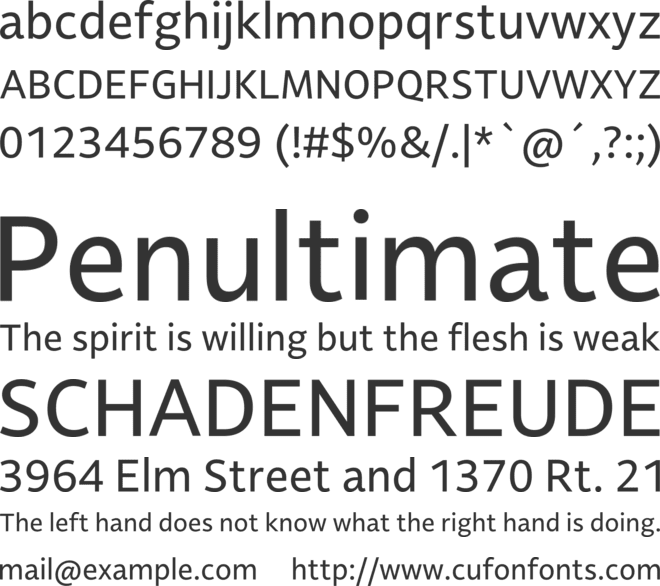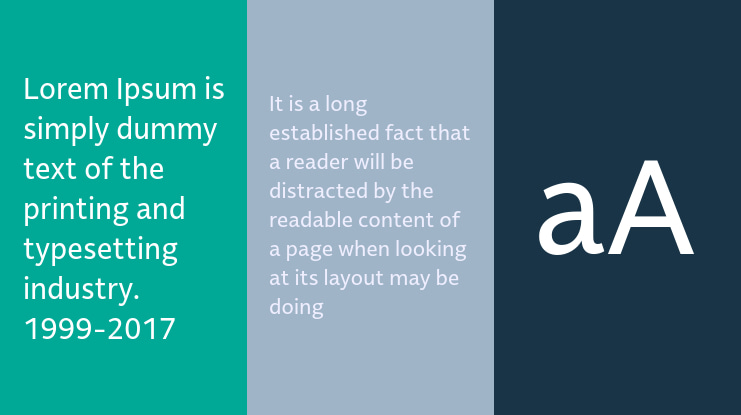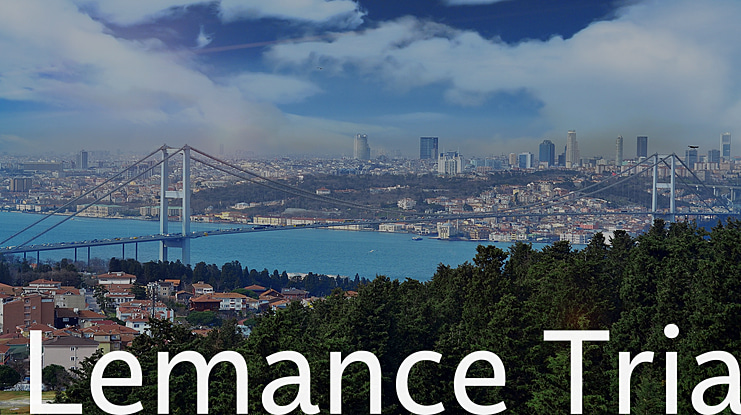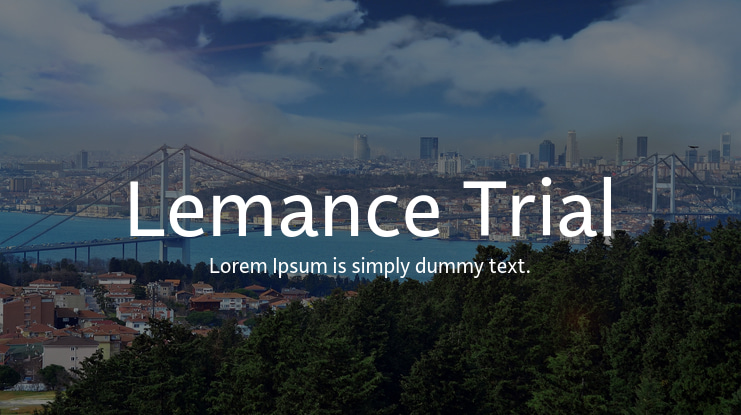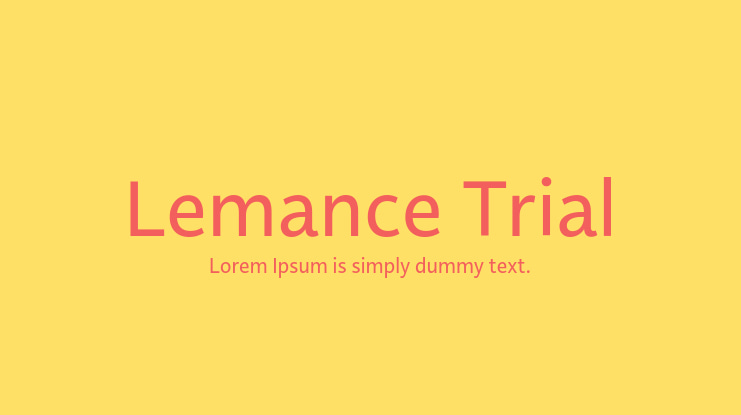
Lemance Trial Font Family
It’s a sans-serif typeface with a technological and minimalist look for text and headlines. Inspiration for a new typeface design can come from many places: shifts in cultural trends, technological developments, historical research, and design experimentation. It can also be an idea that has been bubbling under the surface for many years, where a particular style or textural dynamic are just waiting to be given shape.
As part of his type design training, Damien Collot conducted extensive research into the calligraphic origins of italics and their influence on typography. These fifteen months of study inform his practice and colour the aesthetics of his work at Dalton Maag.
Lemance, the font family that he conceived, takes its name from the river which flows through Monsempron-Libos, a town in southwest France where Damien was born. Like the serene and placid river, his restrained and functional sans serif reveals, on closer inspection, an organic, playful quality.